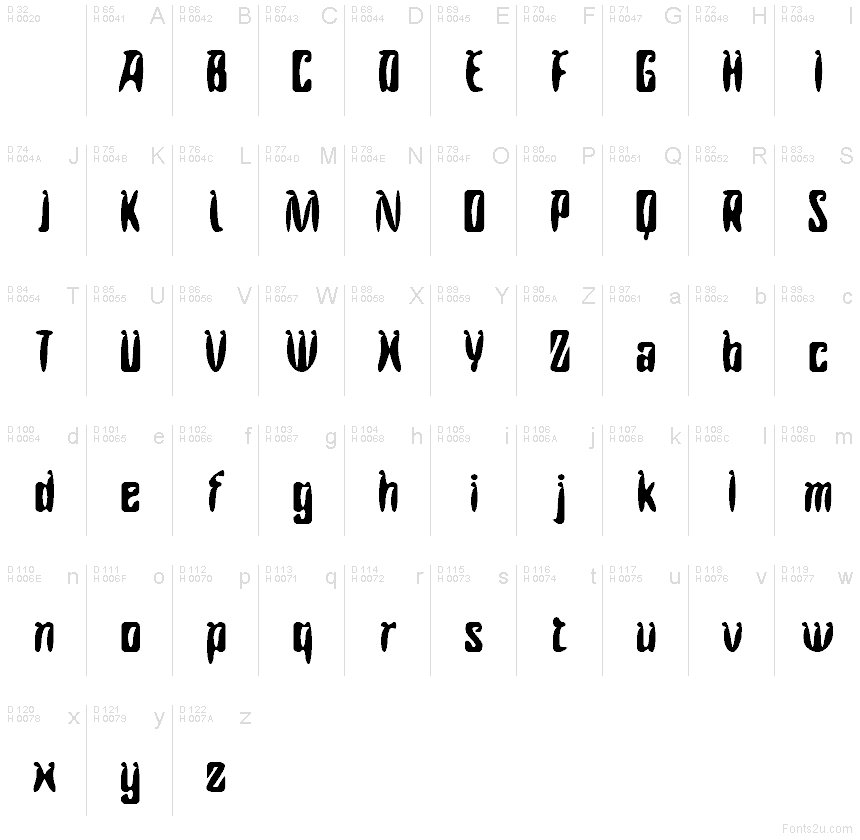
CS Frank Drawn font by Craft Supply Co. is a free bold condensed hand-drawn display font, a standout style from the CS Frank family. It stands out with swelling, inky strokes that pinch and bulge, giving each letter a lively wobble without losing legibility. The condensed proportions pack a punch in tight spaces, while soft, blobby terminals add a friendly, tactile vibe—like wet ink settling on rough paper.
Using CS Frank Drawn, headlines feel loud and human: great for posters, gig flyers, craft packaging, indie brand marks, cafe menus, stickers, and social promos. This free font’s irregular rhythm creates instant character and helps short phrases read with bounce and momentum. Pair it with a clean grotesque sans for body copy, and give it a touch of extra tracking when scaling up to billboard sizes.